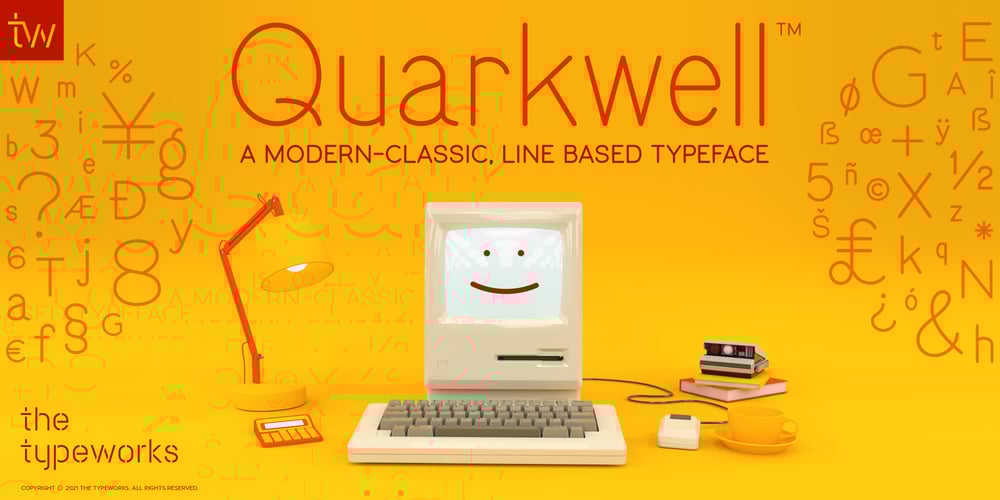
Quarkwell
Quarkwell font
Quarkwell Font Family was designed by J.A. Miller and published by TheTypeworks.com. Quarkwell contains 4 styles and family package options. Quarkwell™ by The Typeworks is a line based typeface ideal for use in designs that require a modern and highly legible appearance whilst still retaining a classic feel.The Quarkwell font family is inspired by lettering from twentieth-century pantograph engraving machines. The letterforms give a nod to the signature copy sets used on many computer mechanical keyboard keycaps and vintage typewriters, plotter engraved plastics signage fonts and others using modified Gorton lettering.Quarkwell font faces include many stylistic alternates for its uppercase and symbols characters sets. Need a different “Q” design? Use access all alternates or insert symbol to select a different “Q” form!Vector lines for plotting machines are also available to purchase on request at TheTypeworks.comSo take Quarkwell home today! It’s a perfect fit for all sorts of projects.